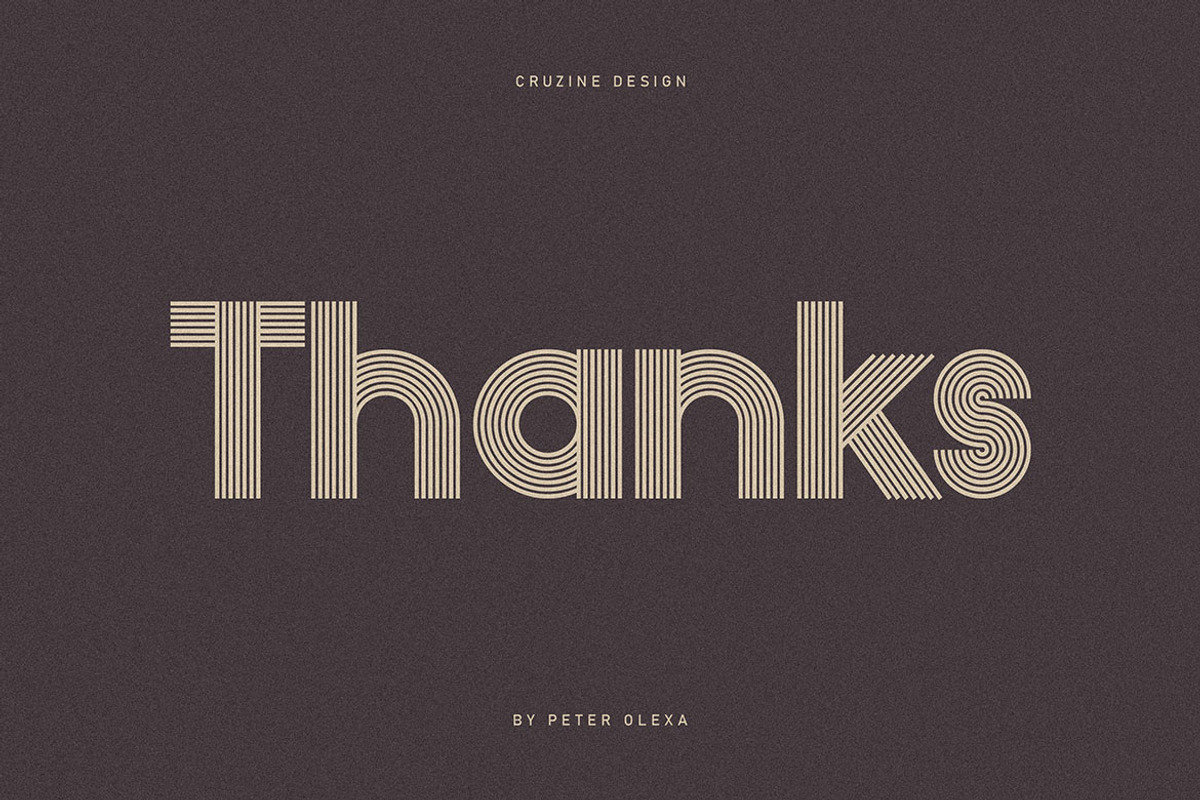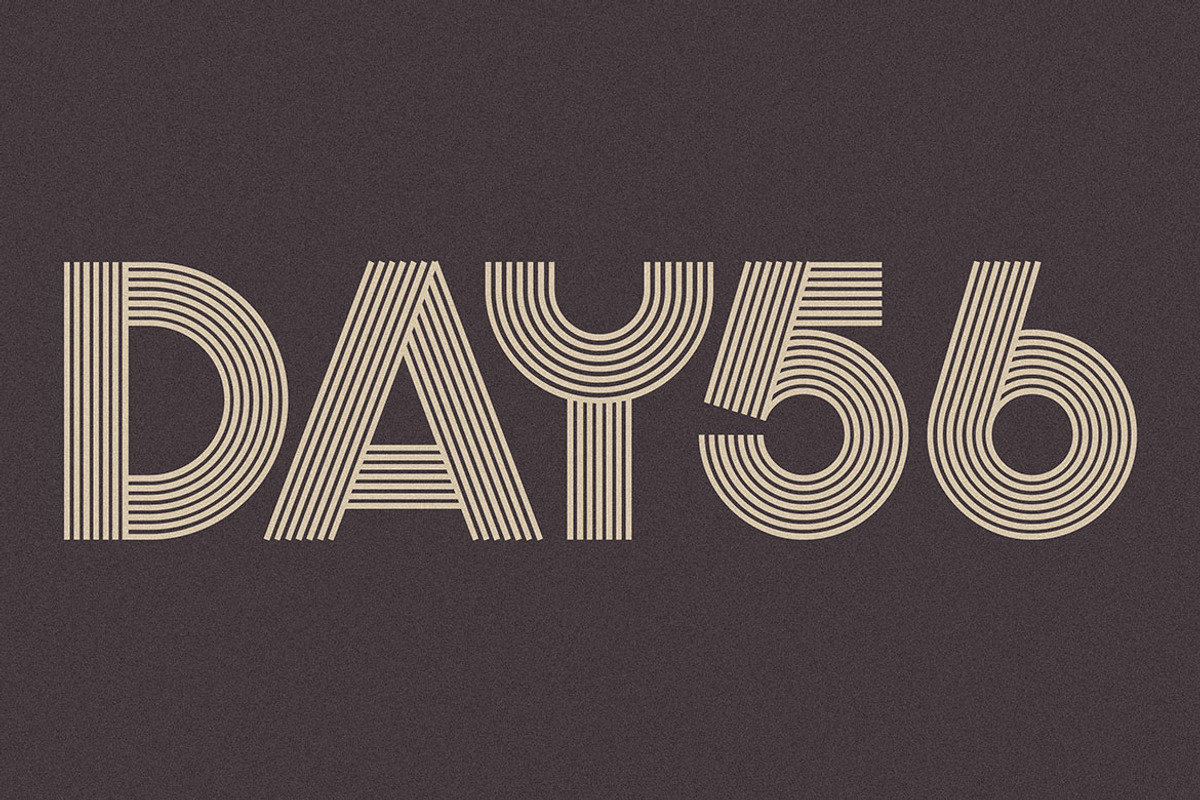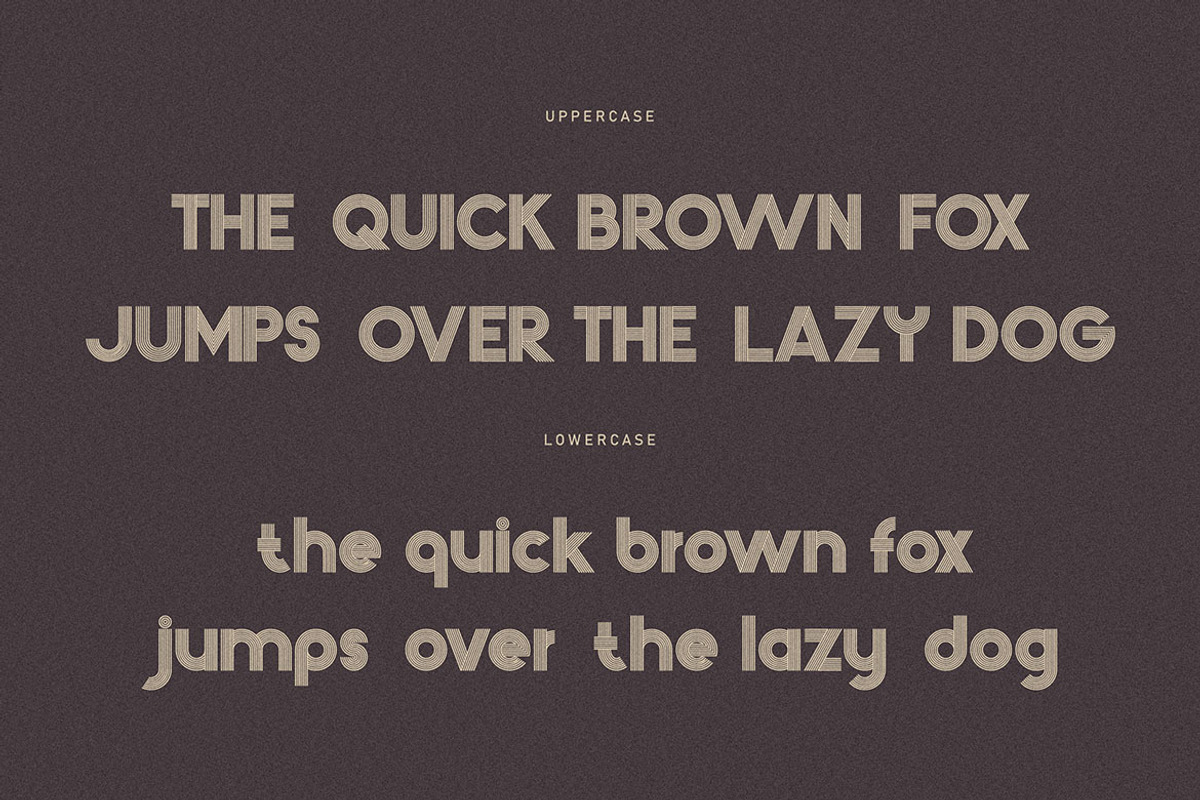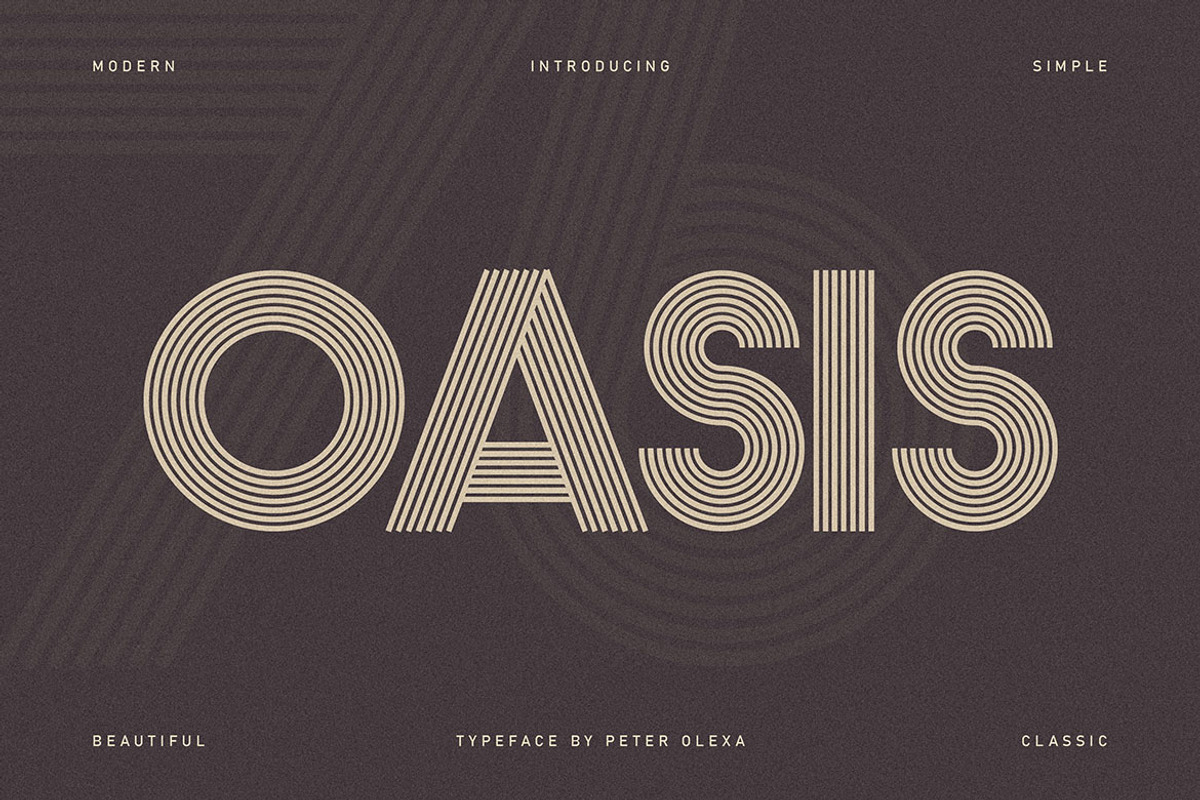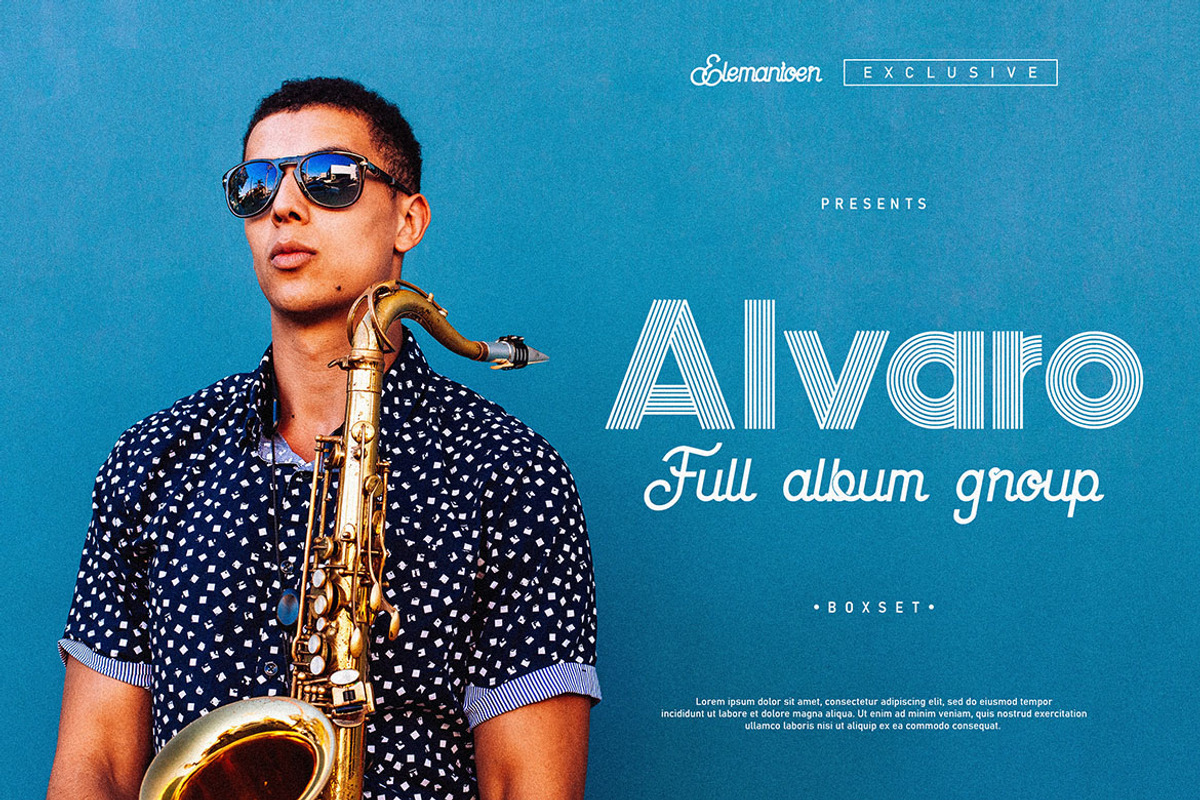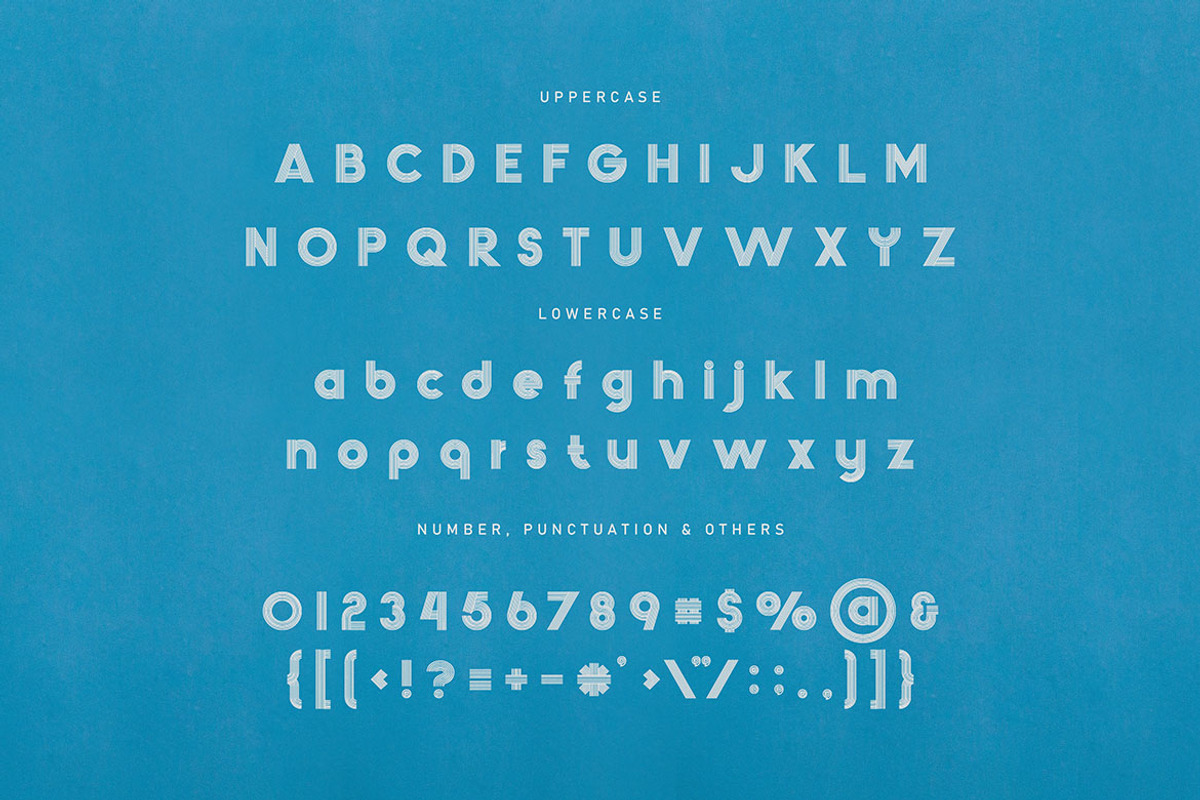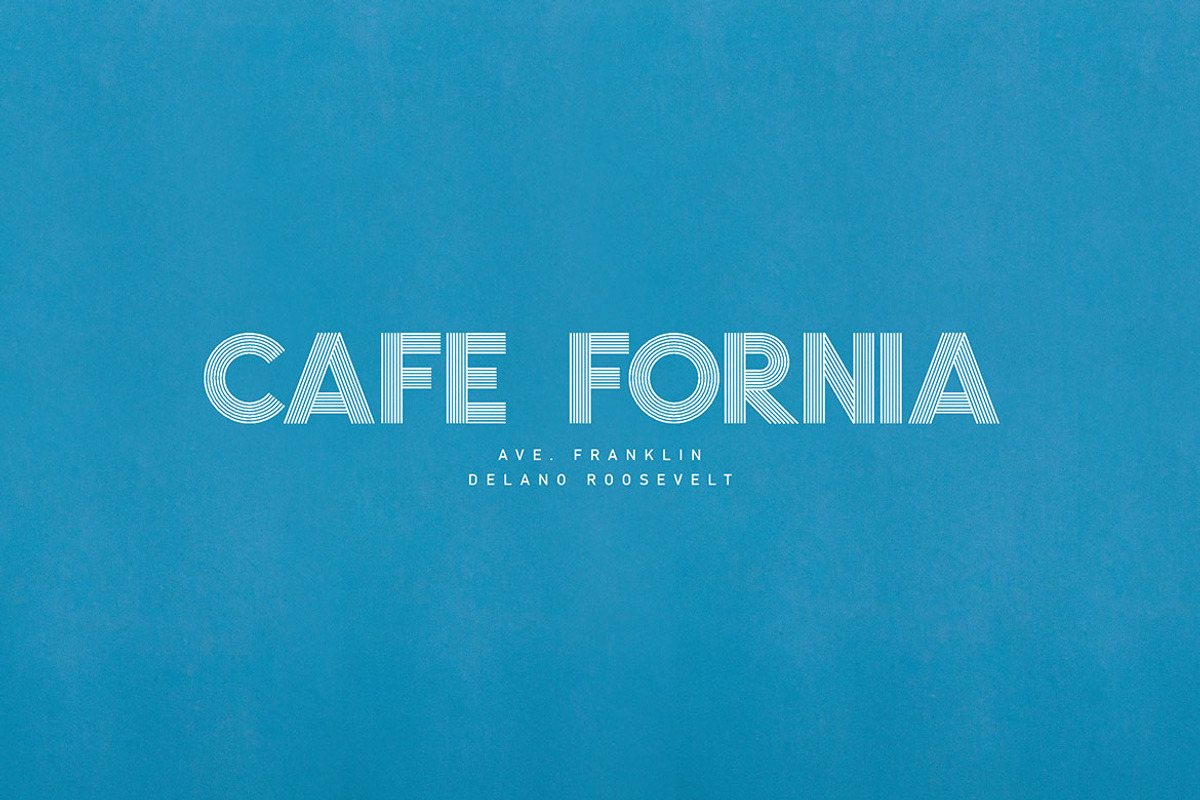
Oasis Geometric Font
Creative, modern, sharp, unique & bold font for your new projects. With cool linear or geometric style. Great for neon or futuristic projects.
- Great for modern & futuristic branding projects